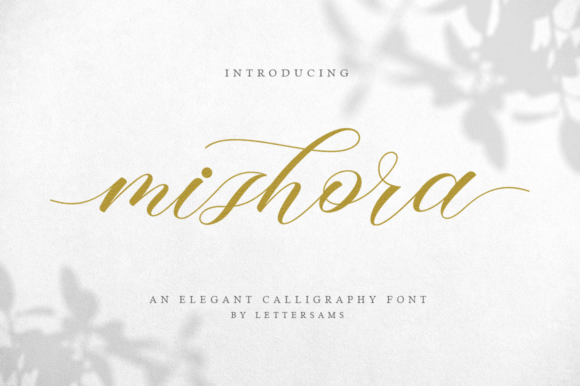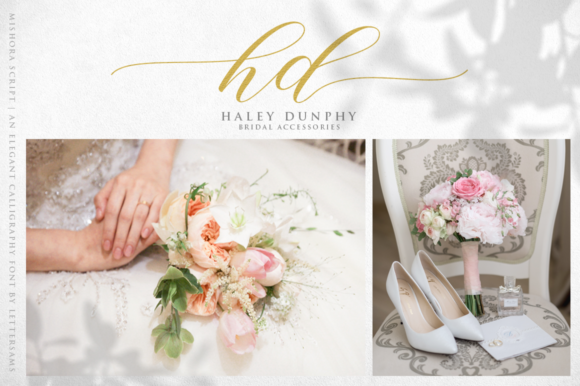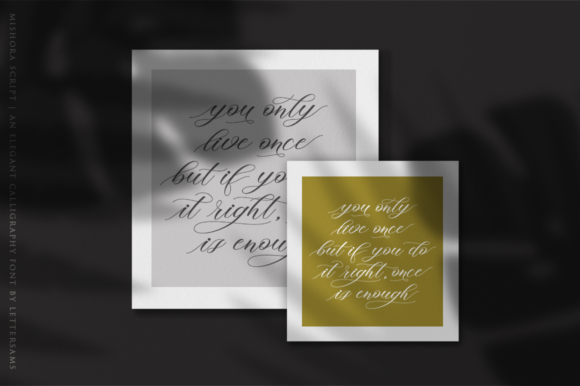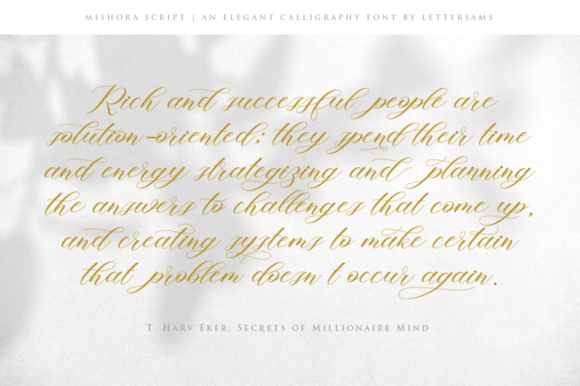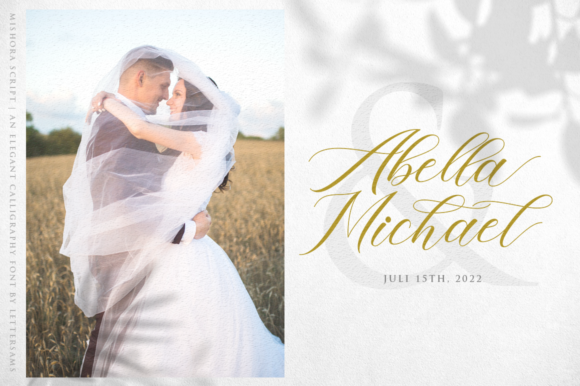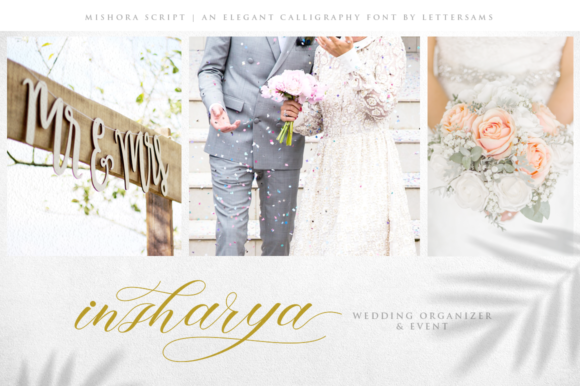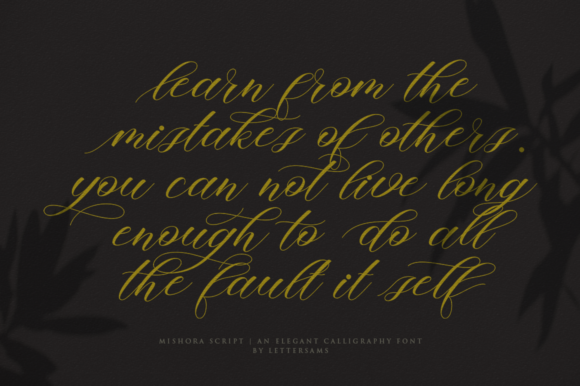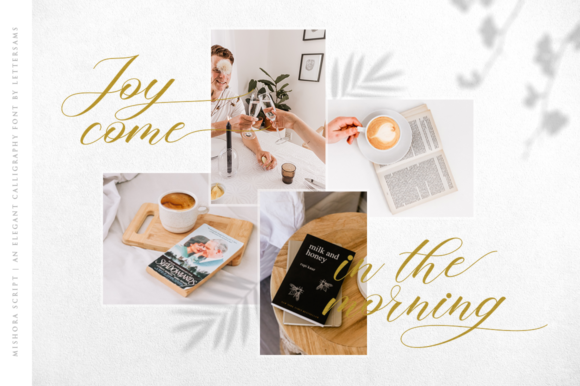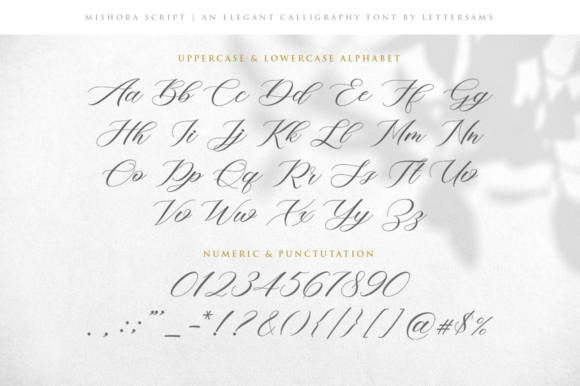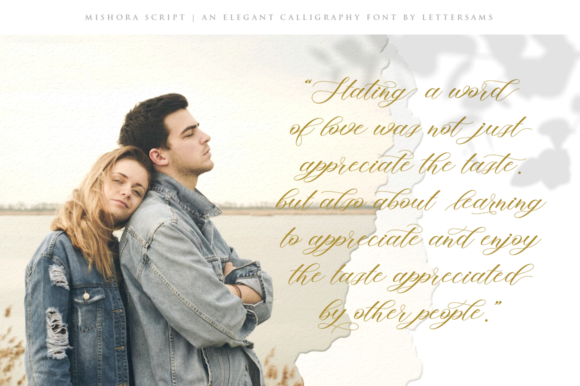
Mishora Script Font
About Mishora Script Font
Mishora is a classic script with incredibly romantic swashes. It will turn any design idea into a true piece of art.